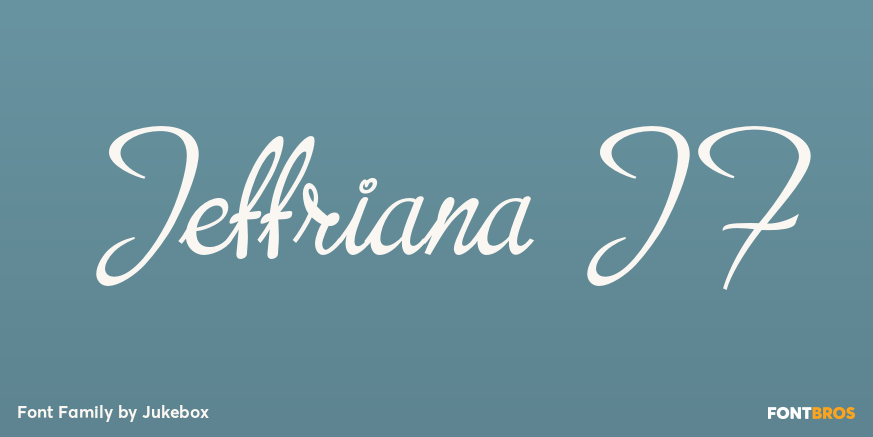
Jeffriana JF
A script font done in a hand writing style named after a friend of the designer. Jeffriana was created with the idea in mind of maintaining the idiosyncrasies of writing rather than the more designed look of a typeface. That gives the font some quirky…